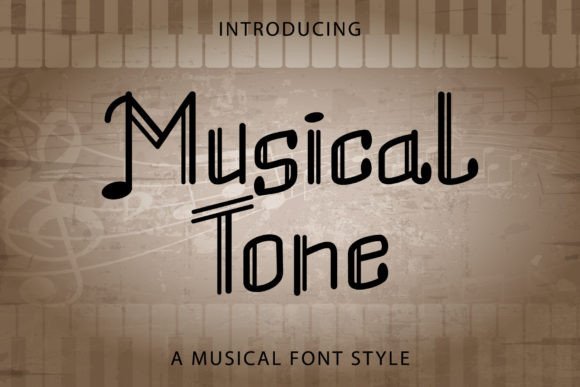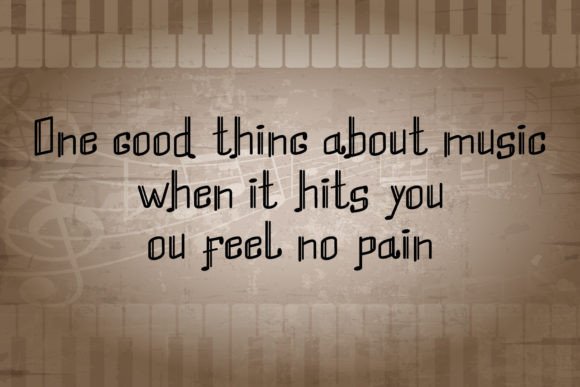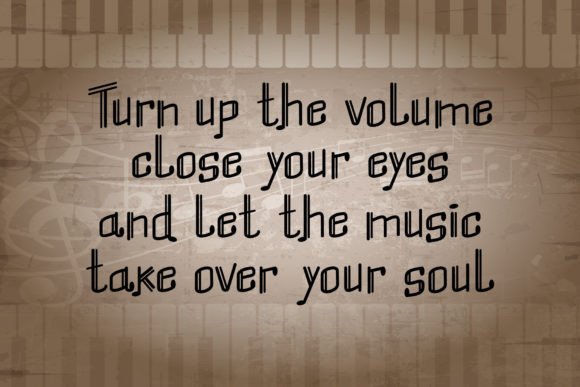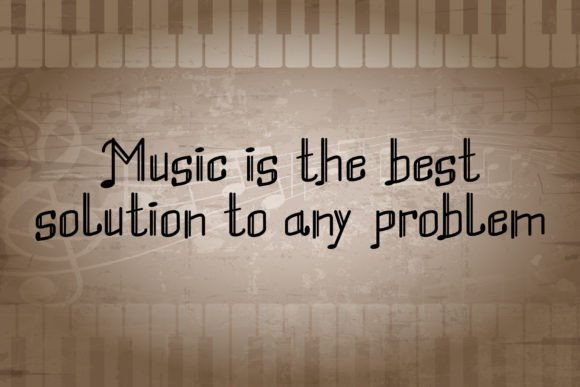
Musical Tone Font: A Cute & Playful Font for Kids’ DIY Projects
About the Musical Tone Font
Meet Musical Tone Font, a stunning font that brings a touch of elegance and professionalism to any design. Musical Tone is a elegant and classic music note themed font. It is suitable for winter and kids’-related products, t-shirts, stickers, cover books, children’s books, social media posts, and much more!
Musical Tone’s playful yet elegant style makes it ideal for children’s book covers, branding for musical products or events, and eye-catching social media graphics. It works well in headlines and short text blocks on packaging, but its decorative nature makes it less suitable for body text or UI elements requiring high readability.
The overall personality is cheerful and approachable, suggesting themes of music, childhood, and celebration. Avoid using it in contexts requiring seriousness or formality.
Musical Tone Font Usage Examples
Musical Tone Font Example